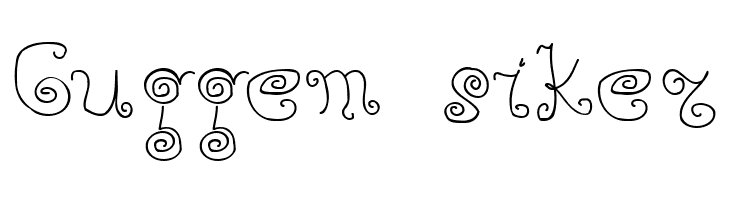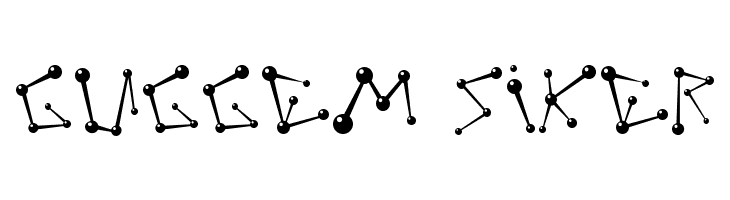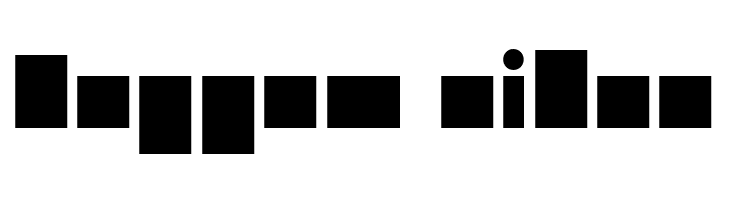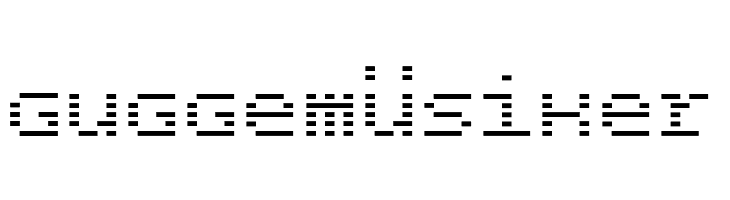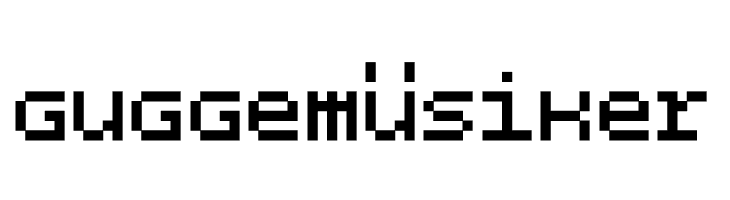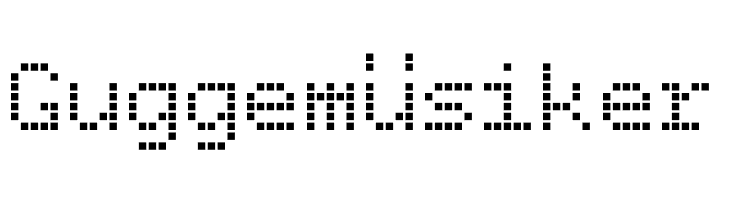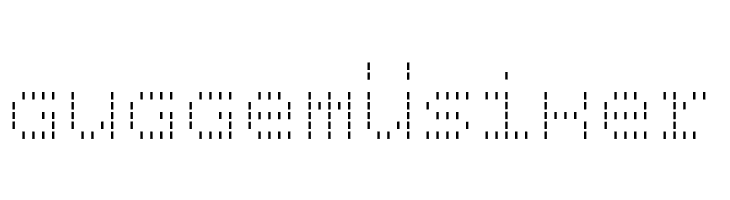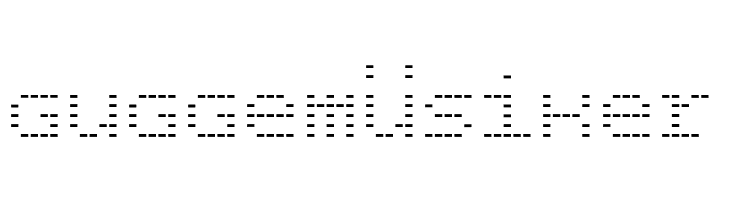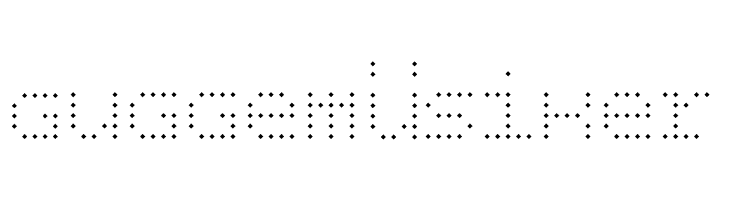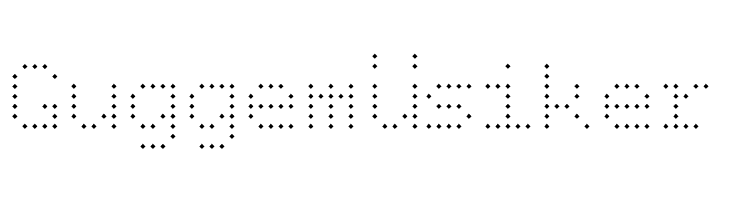
A light, dotted font with characters formed by diamond-shaped dots, offering a modern and decorative style.
A dotted font with a digital, retro aesthetic.
A dot matrix style font with a retro digital display aesthetic.
A dotted, geometric font with a digital, pixelated style.
A dot-based, pixelated font with a retro digital style.
A modern, dot-based font with a retro digital display aesthetic.
A pixelated, bold font with a retro digital aesthetic.
A modern, dotted font with a geometric and playful design.
A dot matrix style font with uniform spacing and a modern, tech-inspired look.
A modern, dotted font with a playful and bold appearance.
A modern dotted font with a digital, tech-inspired aesthetic.
A modern, dot-based font with a geometric, pixelated style.
A bold, geometric font made of diamond-shaped dots, offering a modern and artistic style.
A modern, dotted font with a unicase effect and geometric design.
A modern, dotted font with a digital, tech-inspired style.
A modern, dotted font with a digital, pixelated aesthetic.
A modern, dotted font with a geometric and playful style.
A bold, dotted font with a modern, digital aesthetic.
A pixelated font with square dots, offering a modern, digital aesthetic.
A modern, dotted monospaced font with a geometric and minimalist design.
A dot matrix style font with a digital, geometric design.
A bold, dot matrix font with a modern, digital aesthetic.
A modern, dot-based font with a digital, pixelated style.
A bold, dot matrix font with a digital, retro aesthetic.
A whimsical, curly font with playful loops and swirls.
A bold, italic, and condensed font with high contrast and a modern, dynamic style.
A modern, geometric font with a clean, structured design.
A modern, narrow, and slightly italicized font with consistent stroke width.
Bold, uppercase Roman numerals with a classic and authoritative style.
A bold, geometric font with characters in solid black squares, ideal for digital or retro themes.
A decorative font inspired by molecular structures, featuring dots and lines.
A modern, monospaced typeface with geometric structure and uniform spacing.
A clean, modern monospaced font with uniform character width and minimalist design.